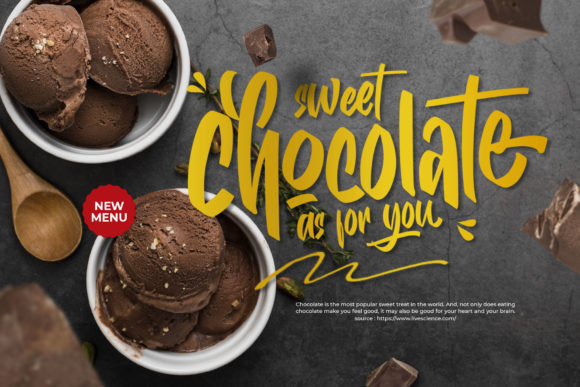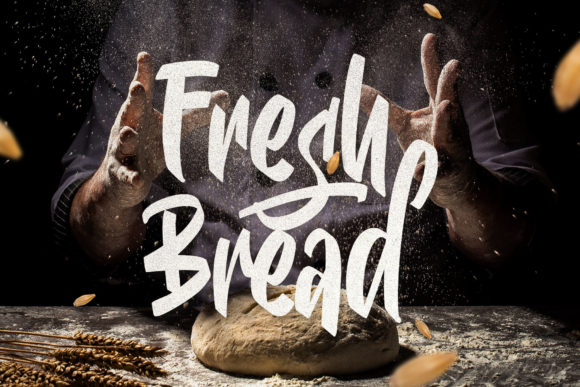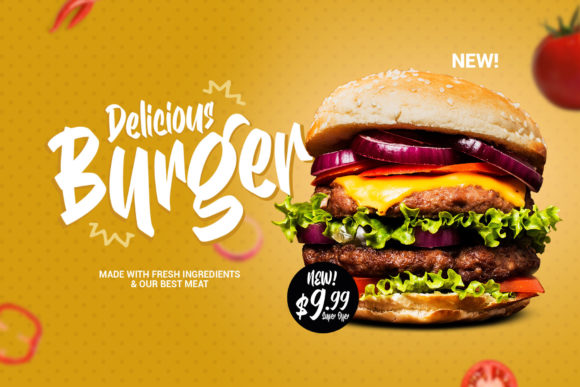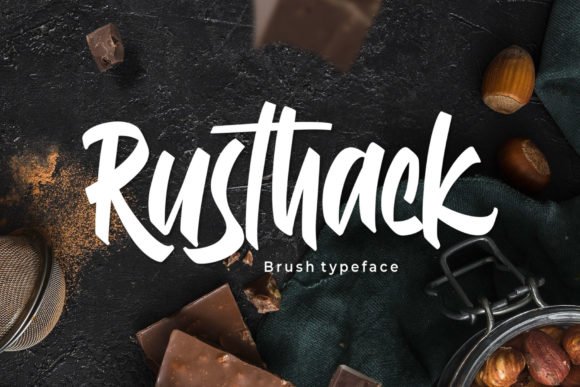
Introduction to Rusthack Font
Rusthack is a unique and interesting display font.
👤 Author Arterfak Project
A little bit quirky, this font is a great choice for a wide variety of contexts .
Key Features of Rusthack Font
Why Choose Rusthack Font?